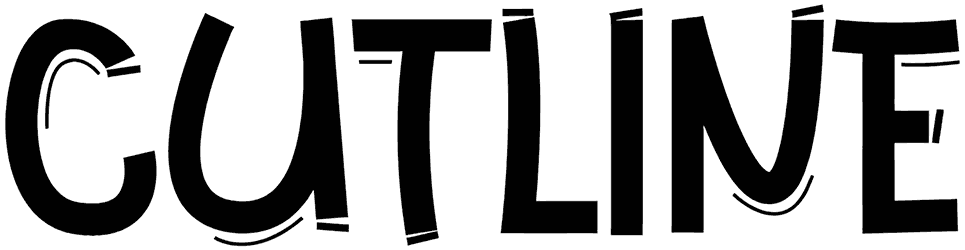
Cutline Font
Jump ahead of others by trying this marvelous cartoon font. Cutline is a sweet font that gives your content a playful and whimsical mood that makes it a brilliant choice for tons of different projects like branding, gift cards, welcome banners, movie posters, and party flyers.